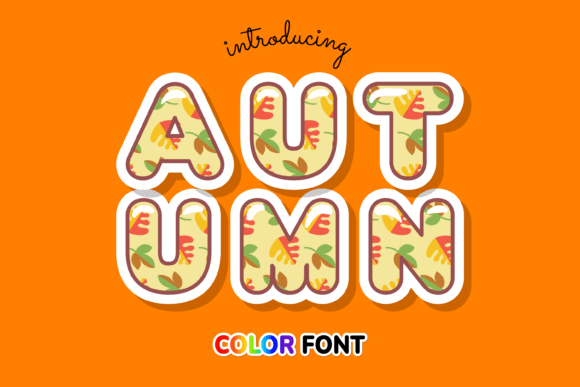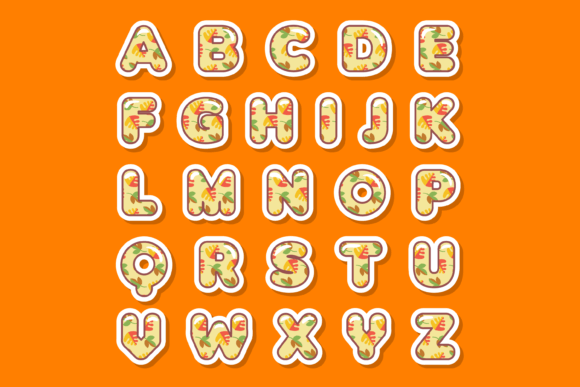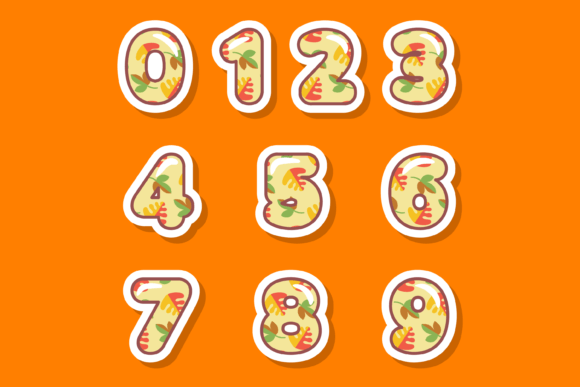
Autumn Font
Introducing Autumn, an incredibly cool color font designed in the style of leaves. This font captures the essence of the autumn season, bringing the beauty of nature’s changing colors and falling leaves to your designs. Whether you’re working on custom designs, DIY crafts, or any other creative project, Autumn is the perfect choice to add a touch of seasonal charm.
Autumn stands out with its intricate and detailed leaf-inspired letterforms. Each letter is designed to reflect the unique shapes and textures of different types of leaves, from maple to oak and everything in between. The vibrant colors and rich tones of autumn are carefully incorporated into the font, creating a visually captivating typographic experience.
With Autumn, you can bring the warmth and coziness of the fall season to your designs. Whether you’re creating posters, invitations, greeting cards, or social media graphics, this font will infuse your projects with a sense of nostalgia and natural beauty. Its versatility allows it to be used in various design styles, from rustic and earthy to elegant and sophisticated.
Embrace the spirit of autumn and let Autumn transform your designs into something truly remarkable. Its cool and refreshing vibe, combined with the natural beauty of leaves, will evoke a sense of tranquility and harmony. Whether you’re designing for the fall season or simply want to add a touch of nature to your creations, Autumn is the perfect choice.
Choose Autumn for its unique and captivating design, and let it bring the beauty of autumn leaves to your designs. Whether you’re aiming for a cozy and rustic look or a vibrant and whimsical atmosphere, this font has the versatility to adapt to your vision. Embrace the colors and textures of the season with Autumn, and watch as your designs come to life with the magic of fall.